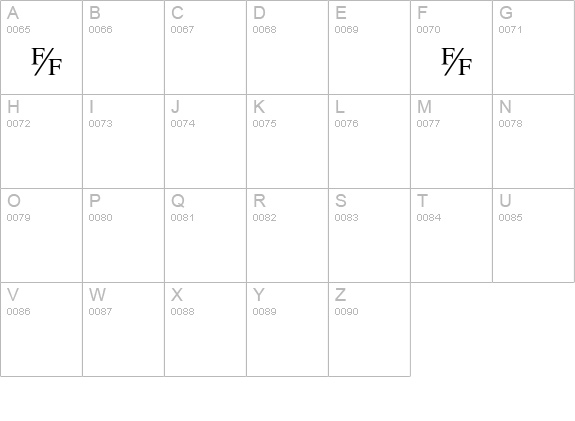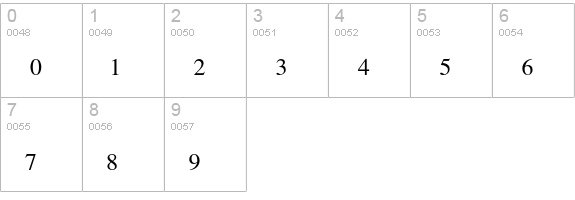
TmsFB font is a beautifully crafted typeface that combines elegance with a touch of modernity. This versatile font is perfect for a wide range of design projects, from branding and logo designs to invitations and social media posts. With its clean lines and stylish curves, TmsFB font adds a sophisticated and professional look to any piece of work. One of the most appealing aspects of TmsFB font is that it is available for free. You read it right - this stunning font can be downloaded without any cost! It is freely available to download at FontsMarket.com, a reputable online platform for fonts. So, whether you are a professional designer or a hobbyist looking to enhance your creations, TmsFB font is a fantastic choice that won't break the bank. What sets TmsFB font apart is its versatility and adaptability. It is equally suitable for both print and digital media, making it a valuable asset for any creative project. Whether you are designing a magazine layout, creating a website, or even customizing your personal blog, TmsFB font will effortlessly elevate your design and make it stand out. The characters of TmsFB font are meticulously designed, ensuring legibility and readability at any size. Each letter, number, and symbol has been crafted with precision, resulting in a font that is not only visually appealing but also easy to read. This attention to detail is what makes TmsFB font a reliable choice for professional designers, as it guarantees a flawless end result. In addition to its aesthetic appeal and versatility, TmsFB font also offers a wide range of weights and styles. From light and airy to bold and expressive, this font has it all. This variety allows you to experiment and find the perfect combination that suits your specific design needs. Whether you are working on a personal project or a client's request, TmsFB font is a must-have in your font collection. With its stunning design, versatility, and the added bonus of being free to download at FontsMarket.com, TmsFB font is the ideal choice for any designer or creative enthusiast. So go ahead, explore the endless possibilities that TmsFB font offers and let your creativity shine!